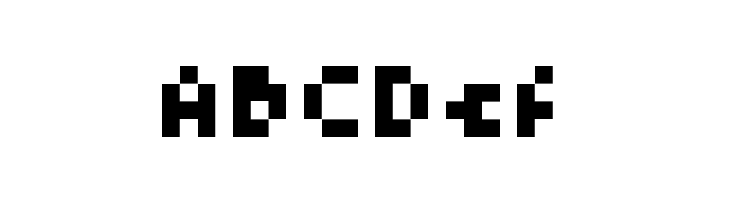
Beras Ketan Font
- Font: Beras Ketan
( Fonts by Matthew Welch - www.squaregear.net/fonts/ )
A pixelated, retro-style font with a blocky, digital appearance.